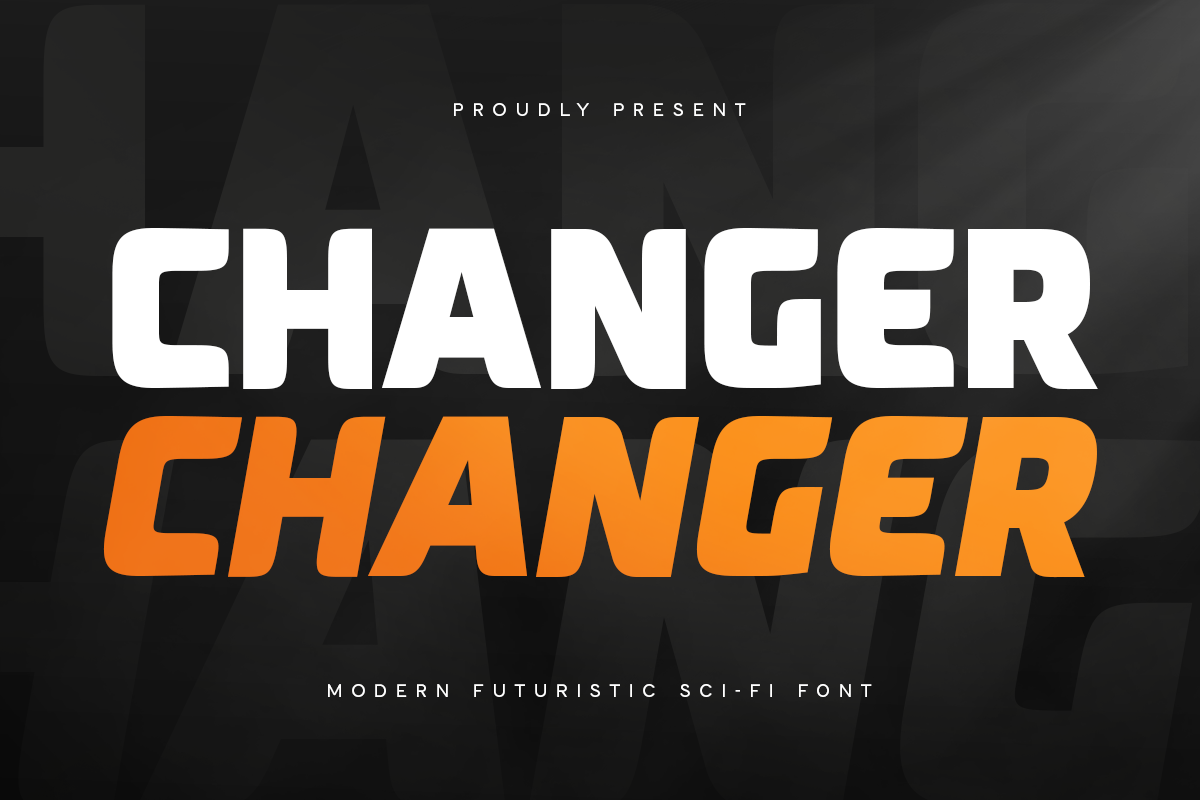
Changer - Futuristic Sci-fi Font
Transform your designs with Changer - the ultimate futuristic sci-fi font for modern technology projects. Specially crafted for sci-fi, modern, and technology themes, Changer delivers extra perfect styles that make your typography stand out with a distinctly futuristic edge. This versatile typeface is ideal for adding style and impact to headlines across cryptocurrency, technology, film, and sci-fi themed projects. Designed with a modern aesthetic and technology-focused appeal, Changer empowers ...